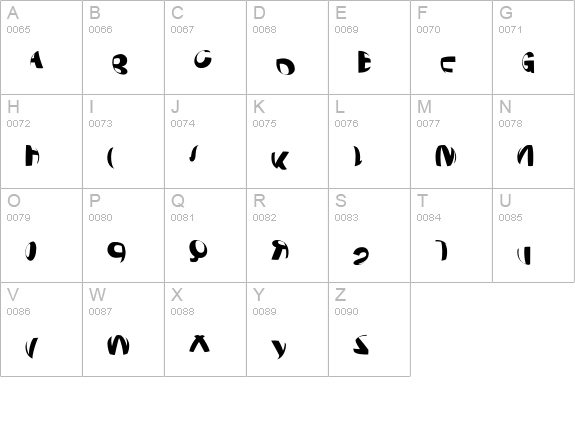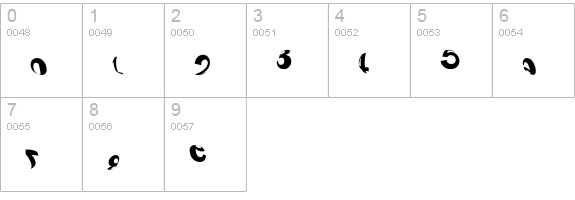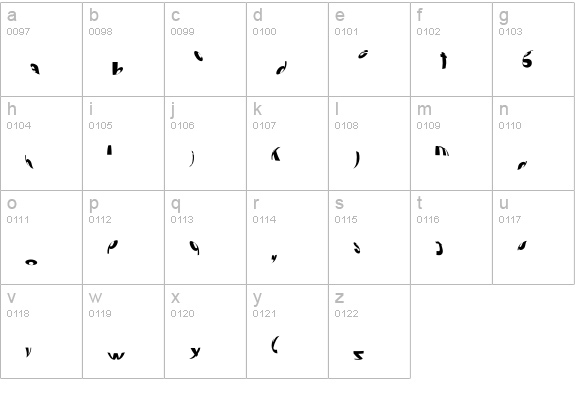
Spherize Font Details
Introducing Spherize, a captivating and versatile font that brings a touch of modernity and elegance to any design project. With its unique blend of sleek curves and bold lines, Spherize is sure to captivate the eyes and make a lasting impression. This font is the perfect choice for a wide range of creative endeavors, from branding and packaging to social media graphics and website designs. Its clean and contemporary aesthetic adds a touch of sophistication to any visual composition, making it suitable for both professional and personal use. Spherize stands out not only for its impeccable design but also for its versatility. Whether you're looking to create eye-catching headlines or engaging body text, this font effortlessly adapts to different contexts, ensuring a seamless and harmonious visual experience. But the best part? Spherize is free! Yes, you read that right. This remarkable font is freely available to download at FontsMarket.com, your go-to source for high-quality fonts. Now you can enhance your design projects without breaking the bank. So why wait? Elevate your designs to new heights with Spherize. Download it now from FontsMarket.com and unlock a world of creativity, all at your fingertips. Embrace the power of this captivating font and let your imagination soar.